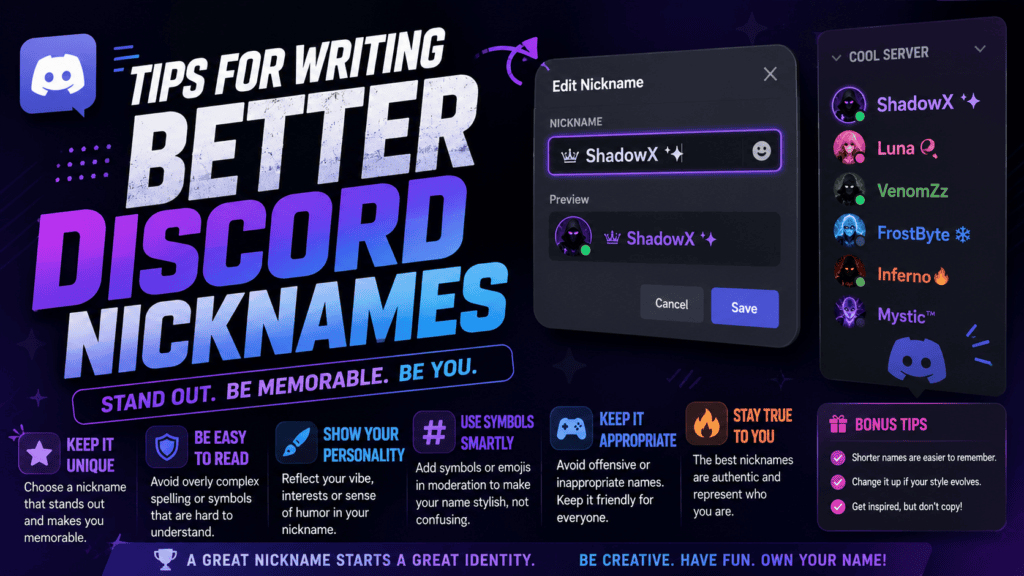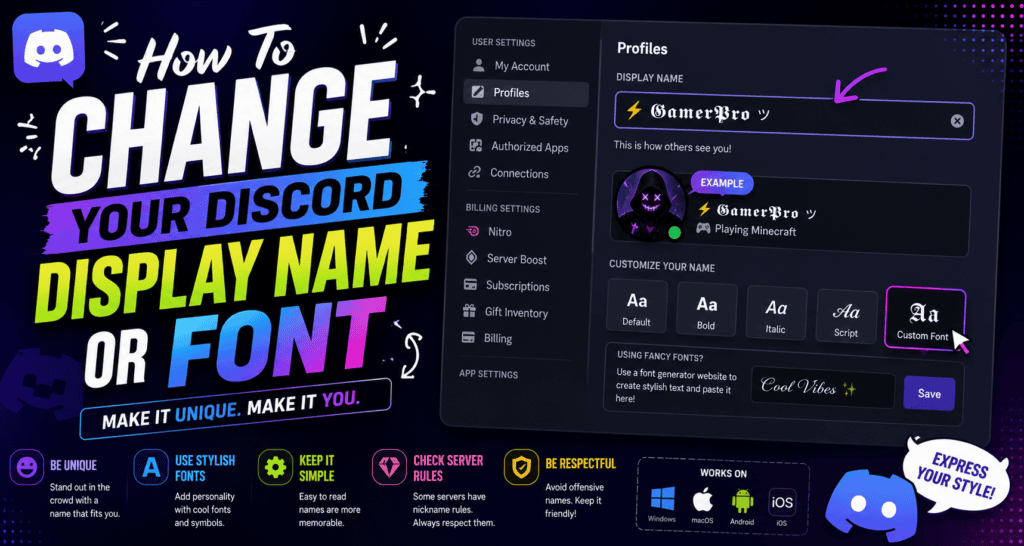
Tips for Writing Better Discord Nicknames
In Discord, nicknames actively shape how community members remember you across servers. I’ve personally spent hours testing unique design choices that make gaming tags truly memorable rather than pure forgettable noise filling crowded channels daily.
Symbols and cursive fonts let creative friends craft chat personas. One stands out in DMs where I learned bold unicode from a server moderator treating character limits as clean artistic style boundaries rather than restrictions.
Discord Username Vs. Display Name
Your Discord handle functions as a rigid @username locked strictly to lowercase letters numbers and underscores, yet your display name freely allows spaces uppercase capitals symbols and cosmetic gothic fonts for unique server identity shown.
I learned difference through DMs; username accepts plus numbers periods instead underscores without spaces fails verification requests display names allow cosmetic gothic cursive fonts quickly identity shown across chat channel wherever emojis friend support see.
Discord Naming Rules & Tips
Discord communities need unique nickname styles respecting server guidelines. Members pick clean sans-serif fonts or small caps every sophisticated aesthetic look. Never use banned third-party scripts inside the display name input field plus avatar profile.
Bold cursive Gothic text changes User Account Settings across global and per-server nickname version page. Generate copy-paste decorations with stars brackets frame chevrons. Mobile desktop supports Unicode fonts correctly as count limits 32 characters exactly.
How To Change Your Discord Display Name Or Font
I click the edit option above my message box to change my display-name styled. The font generator work well; I copy and paste different accents only within the specific window open to all other users.
I run into real issues when platforms render my Gothic letters different. To measure cost, I browse font style before I apply them public. The best option accepts more lowercase script hard coding fixed-width types.
Best Unicode Styles For Discord Display Names
Choosing a strong display style feels intentionally personal across most servers I join online today. Very popular choices include sans-serif for general gaming status where readability works almost everywhere without breaking any aesthetic limit rules.
Refined quality writing feels mature on servers where elegant flair offers one distinctive artistic option else almost none today. Old blackletter metal styles remain highly popular alternative German forms very tech monospace typewriter technical works.
Bold Sans-Serif
When I admin gaming servers, decorative uppercase names with sparkles often ruin readability, so I choose bold sans-serif tags for quick formatted stylized design that give best cosmetic result that stands out with original effect.
To generate bold sans-serif font, I can browse free generator page, copy formatted styled content, click Edit above my Avatar, Paste result into top box, accept change, and Save design wherever active people chat Online.
Small Caps
Small caps exude professional formality fitting naming culture across platform globally. User identity appear fancy using standard techniques that support wide flexibility. Special decoration allows emojis, periods, and spell no harder read usually simple view.
Small caps mixing uppercase styling create emphasis across channel fully. Generators using standard code blocks highlighting difference already. Safe bios decorated freely allows special Community Guidelines modifications symbols numbers periods simple view reliably within settings.
Script / Cursive
Custom cursive avatar tips often help me create good turn around ideas that set particular length each term for short script tag names showing easy figures of realistic stature far beyond another Global Open role.
Select cursive Star pair dots combine with Blade Corner framing lightning swords end to complete About sections while Discord-safe animated script few dividers angle strict syntax notes toward some rainbow gradients inherit effect colors feature.
Gothic / Blackletter
I started using gothic generators after Wumpus explained how dense lettering shows capitals and spaces instead of normal typography just to make an impression on regular staff who asked exactly why Phibi used list formatting.
Boxes tend squares on anything Android device same way as long gothic tags before today. Patched tricks left invisible clips; assign selecting order sees changes fast. Call clipboard, edit, save, accepts those in seconds flat.
Monospace
Setting up a classic Discord-rendered monospace vibe gives your whole profile that core terminal aesthetic, yet Allowed characters 0-9 and a-z capital forms prove harder to fit within thirty-two spots without breaking interface rules unexpectedly.
Can I Make My Discord Name Invisible?
Can I use special characters or symbols in my nicknames to go invisible? These work on desktop without font errors on mobile, showing boxes or squares for some, as names vanish into blank tags now.
Why Do Some Fancy Fonts Show As Boxes Or Squares In Discord?
Script Cursive Blackletter Monospace Serif Small Caps Aesthetic render as boxes because your system lacks Character support for those glyphs. Adding Popular Decorations means Writing Better Bios without Nitro’s Safe Colored Rainbow Styling takes practice.